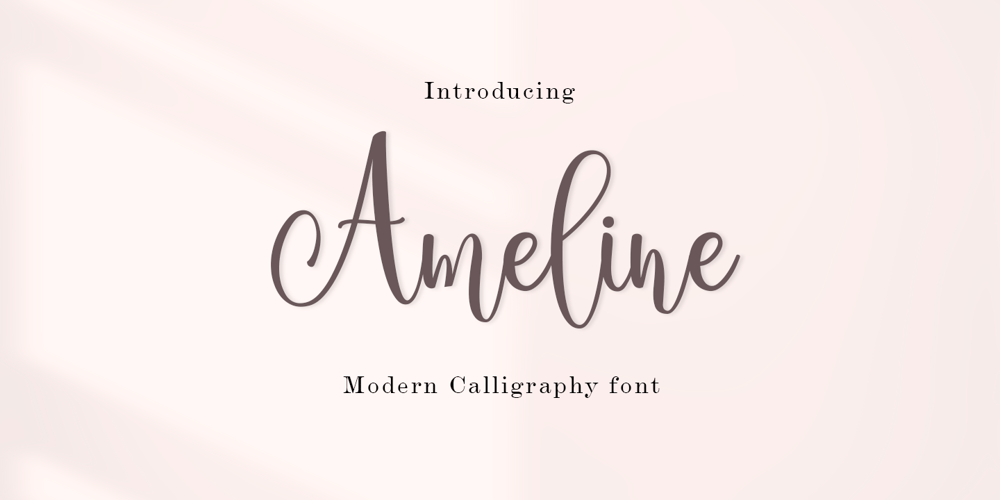
Ameline Font Family was designed by Kamaruddin and published by Amarlettering. Ameline contains 1 styles and family package options. Introducing Ameline, a beautifully refined font resonating sophistication and modern elegance. This graceful typeface showcases its delicacy through the thin, fluid strokes and softly curved contours of its letterforms. Ameline Script is a splendid choice for projects embodying a refined aesthetic, from stylish wedding invitations to chic branding designs and polished editorial layouts.